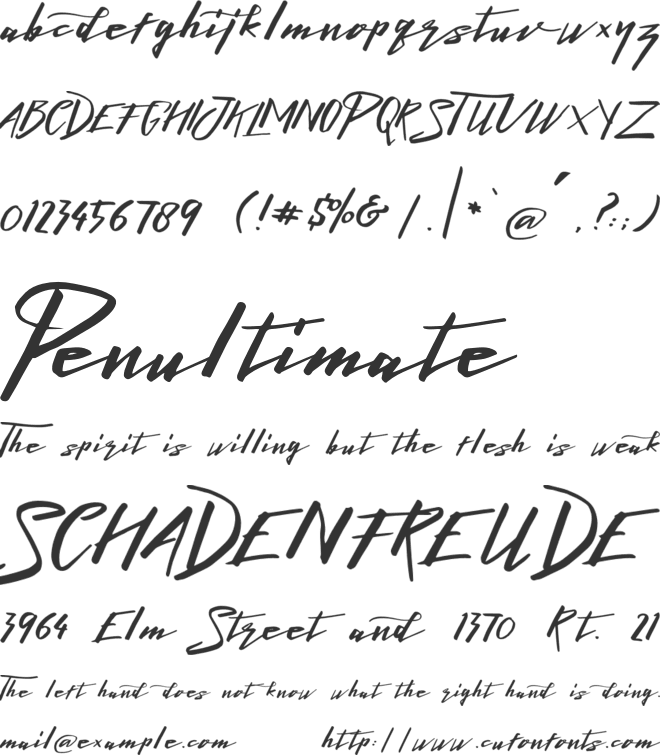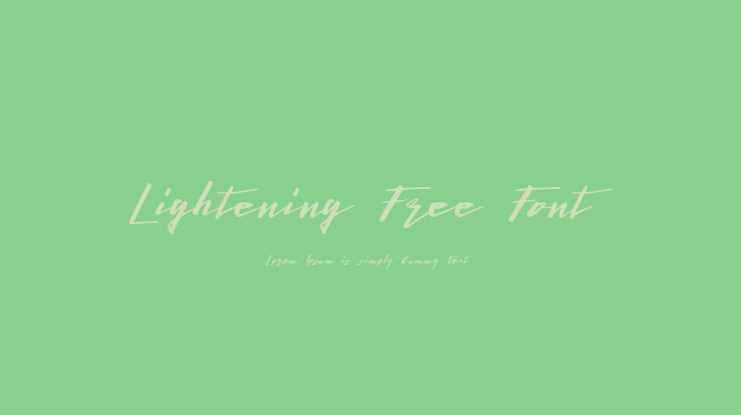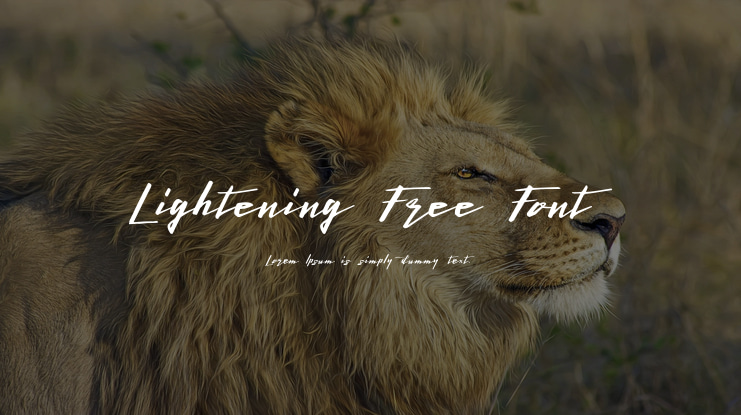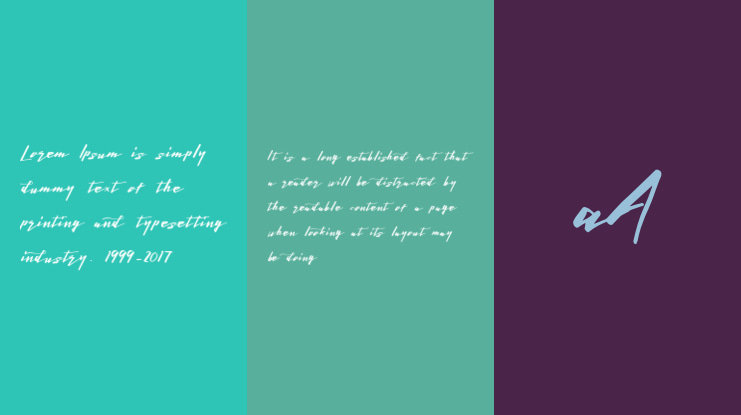
Lightening Free Font
Lightening Script, is a calligraphy wavy, modern and clasik, perfect for your next design, such as logos, printed quotes, invitations, cards, product packaging, headers and anything else about your imagination.
Features Basic Latin A-Z and a-z Numbers Symbols